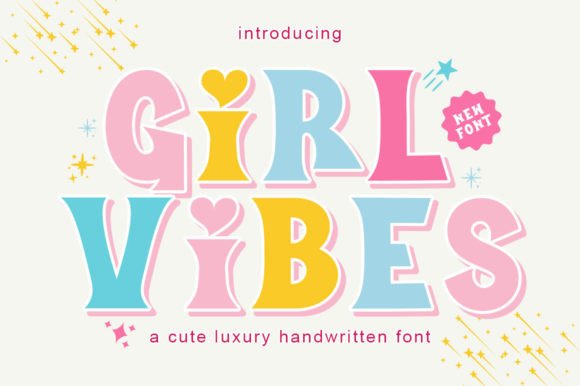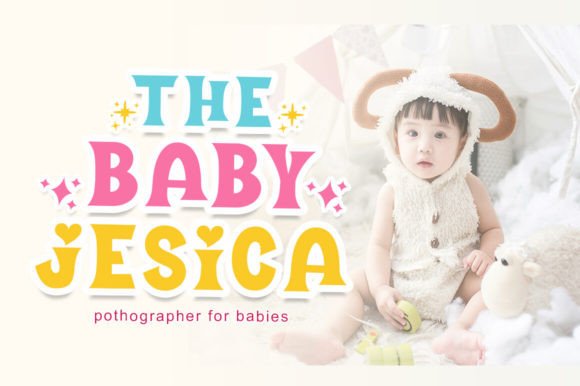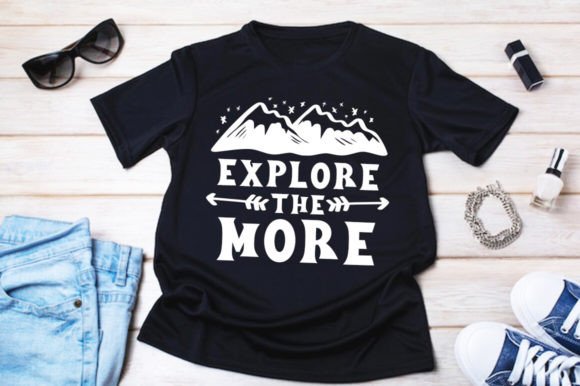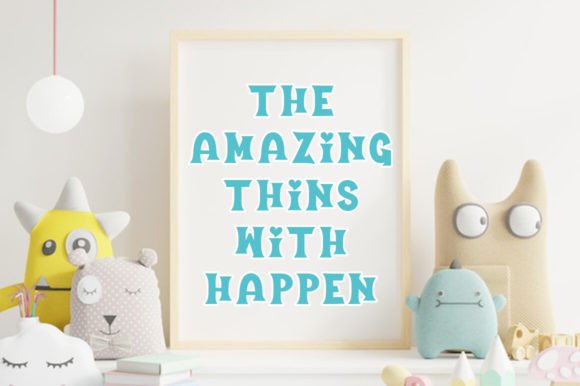
Girl Vibes Font
About the Girl Vibes Font
We are excited to introduce Girl Vibes Font, a must-have typeface for any serious designer. Girl Vibes is a cute and charming display font. Whimsical and a little quirky, this font will brighten up any of your designs. Add it with confidence to your projects, and you’ll love the results.
Girl Vibes Font shines in display contexts such as logos, short headlines, and social media graphics. Its playful nature makes it ideal for branding projects targeting a young, female demographic, or products emphasizing fun and lightheartedness. Avoid using it for body text or lengthy paragraphs; its whimsical forms are less legible at smaller sizes.
Pairing Girl Vibes with a clean sans-serif like Lato for body copy creates a strong visual contrast, balancing the font’s playful energy with readability. Alternatively, a classic serif like Garamond offers a sophisticated counterpoint, lending an air of timeless charm to designs using Girl Vibes as a headline.
The font’s overall personality is undeniably cheerful and friendly, making it a versatile choice for projects needing a touch of quirky charm. Consider using it sparingly to maximize its impact, avoiding oversaturation.